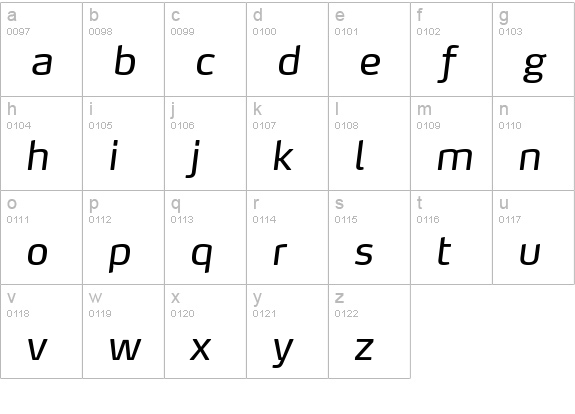
MaxLF-RegularItalic Font Details
MaxLF-RegularItalic is a stylish and elegant font that adds a touch of sophistication to any design project. Its italicized style exudes a sense of modernity while maintaining a classic appeal. The slanted letterforms create a dynamic and fluid look, making it perfect for headings, quotes, and other display purposes. What makes MaxLF-RegularItalic even more appealing is that it is completely free to download at FontsMarket.com. This means you can easily access this high-quality font without any cost, making it a valuable addition to your font collection. Whether you're working on a branding project, website design, or any other creative endeavor, MaxLF-RegularItalic is sure to elevate your work with its unique and versatile aesthetic. Download it today and unleash your creativity with this beautiful typeface.